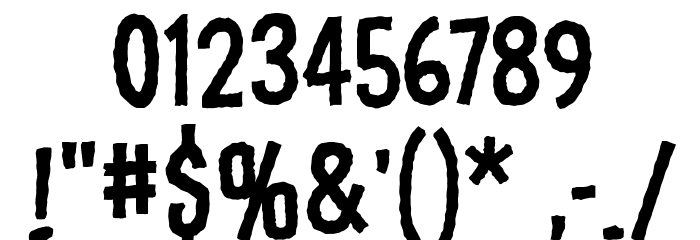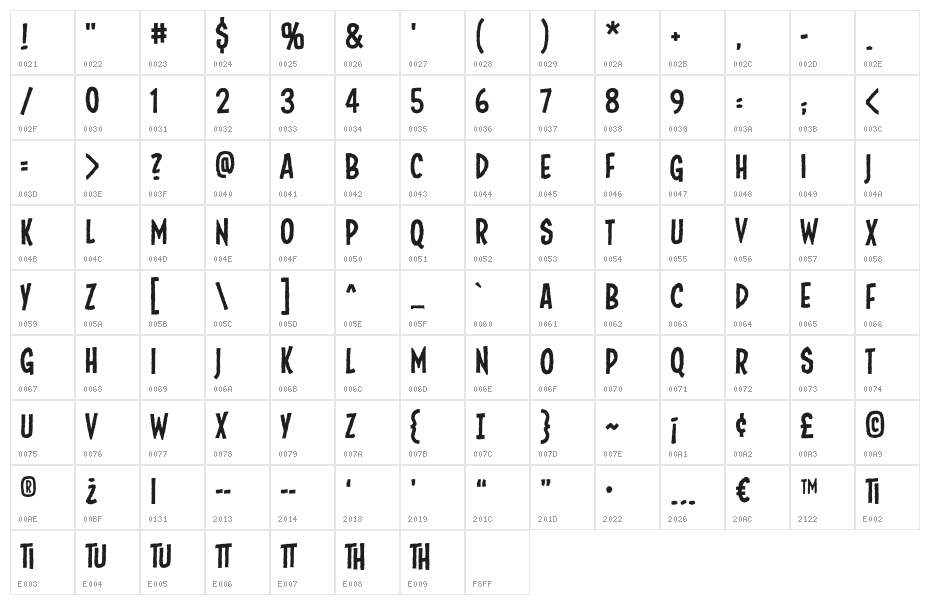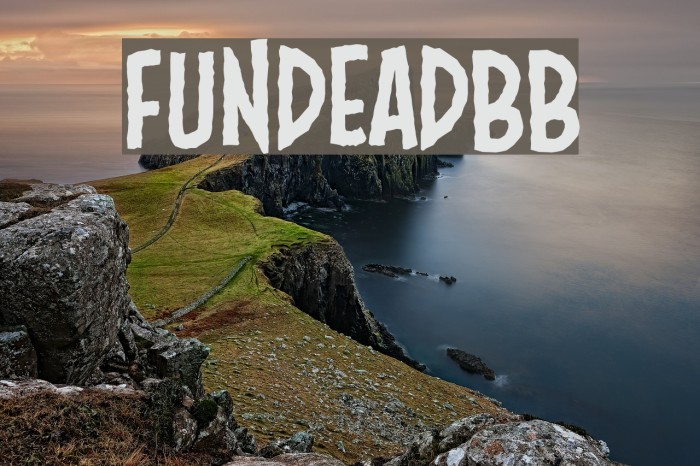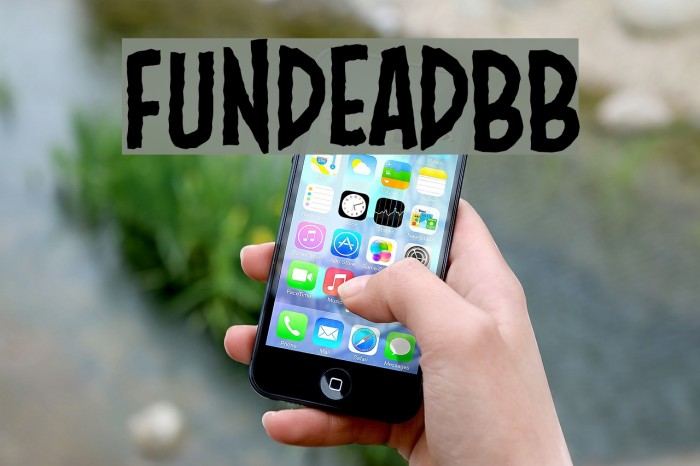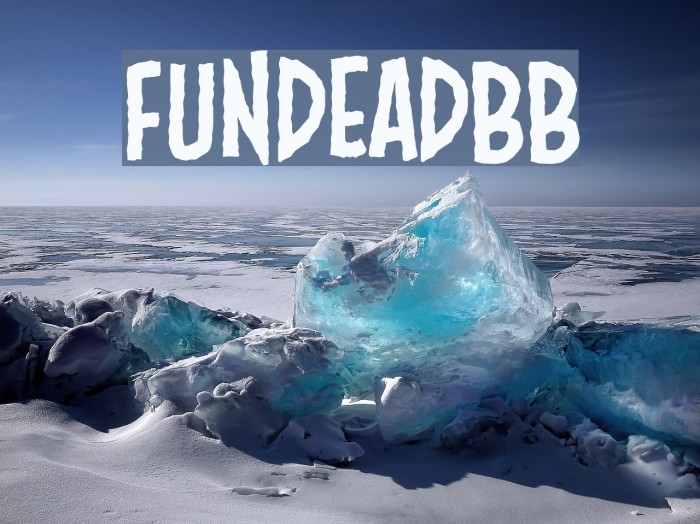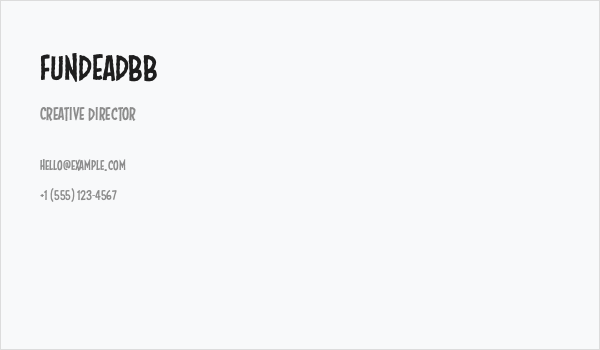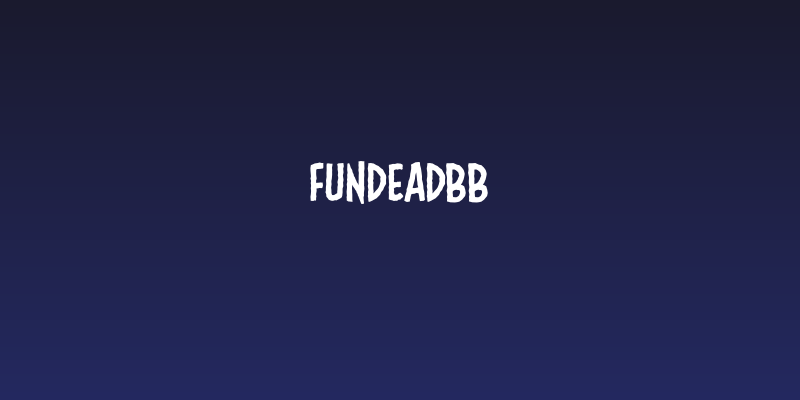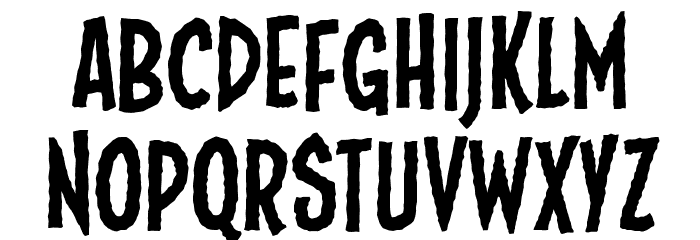
FundeadBB Font
FundeadBB Description
This font features a bold and rugged style with a hand-drawn appearance, giving it a lively and energetic feel. The characters are slightly irregular, adding to its playful and informal vibe. The uppercase letters are prominent and impactful, while the lowercase letters maintain the same boldness, ensuring consistency across the typeface. Numbers and special characters are designed to match the overall aesthetic, making it versatile for various uses. The font's unique style makes it stand out, perfect for creative and unconventional projects.
| Proposed Projects | Ideal for posters, event flyers, comic book titles, and creative branding projects. |